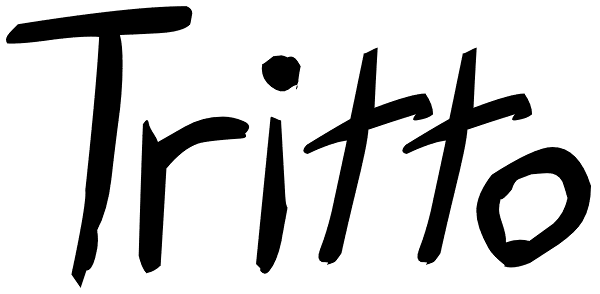
Tritto
Tritto is what happens after you give up a pencil and start using a mouse. It's some wild handwriting that you definitely didn't learn in school. Fun with attitude, great for all sorts of things.
Tritto Font